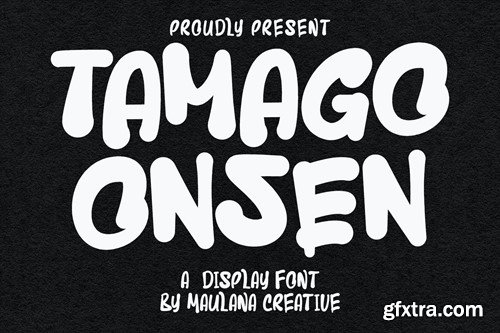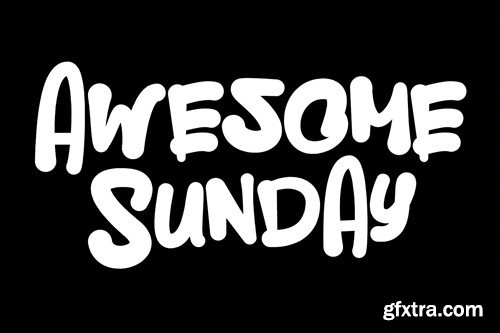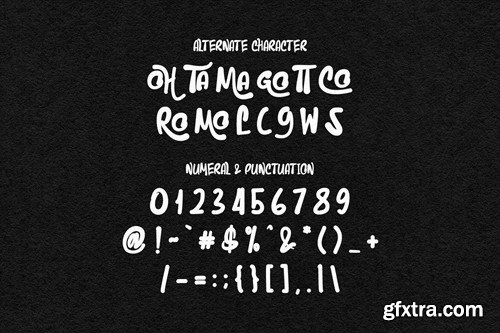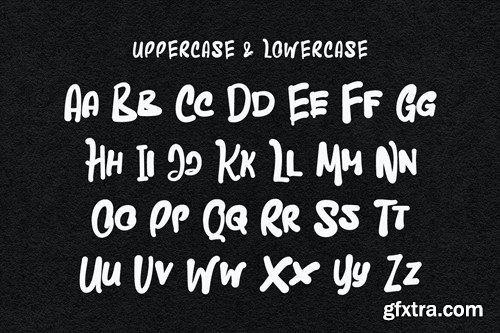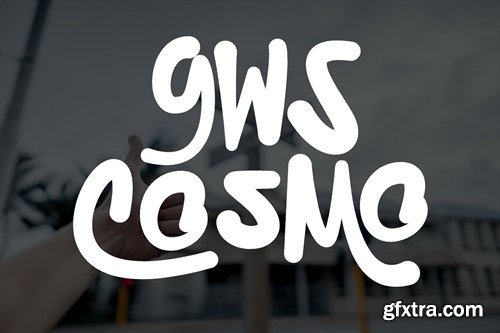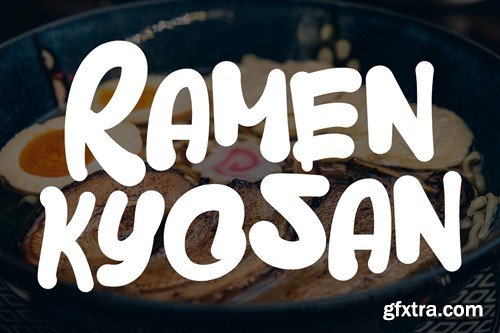
Tamago Onsen Display Font
Tamago Onsen display font. Heavy stroke, fun character with a bit of ligatures. To give you an extra creative work. Tamago Onsen display font support multilingual more than 100+ language. This font is good for logo design, Social media, Movie Titles, Books Titles, a short text even a long text letter and good for your secondary text font with script or serif. Make a stunning work with Tamago Onsen display font. What you get: – Tamago Onsen (OTF) – Tamago Onsen (TTF) – Tamago Onsen (WOFF) Cheers, Maulana Creative